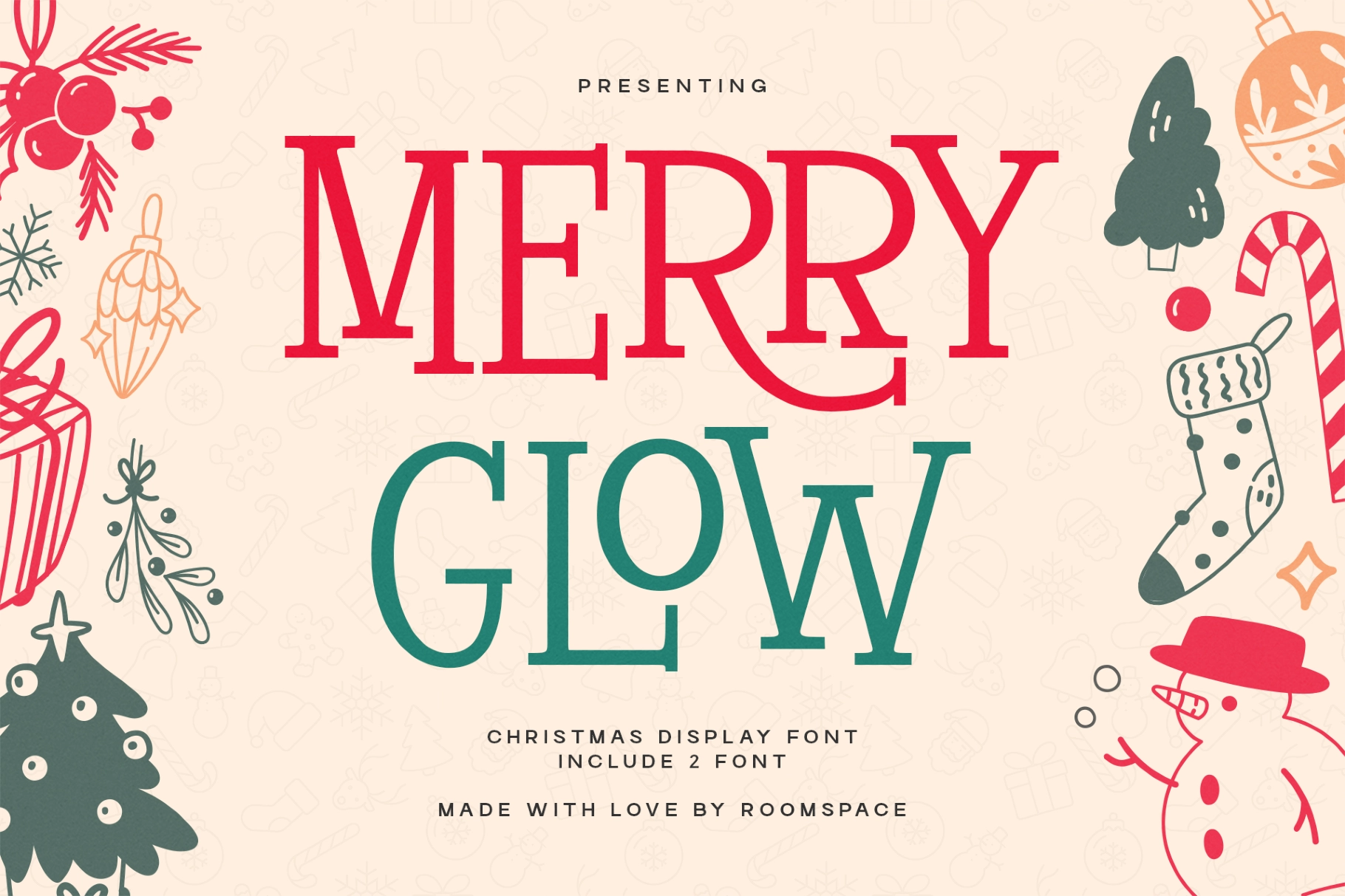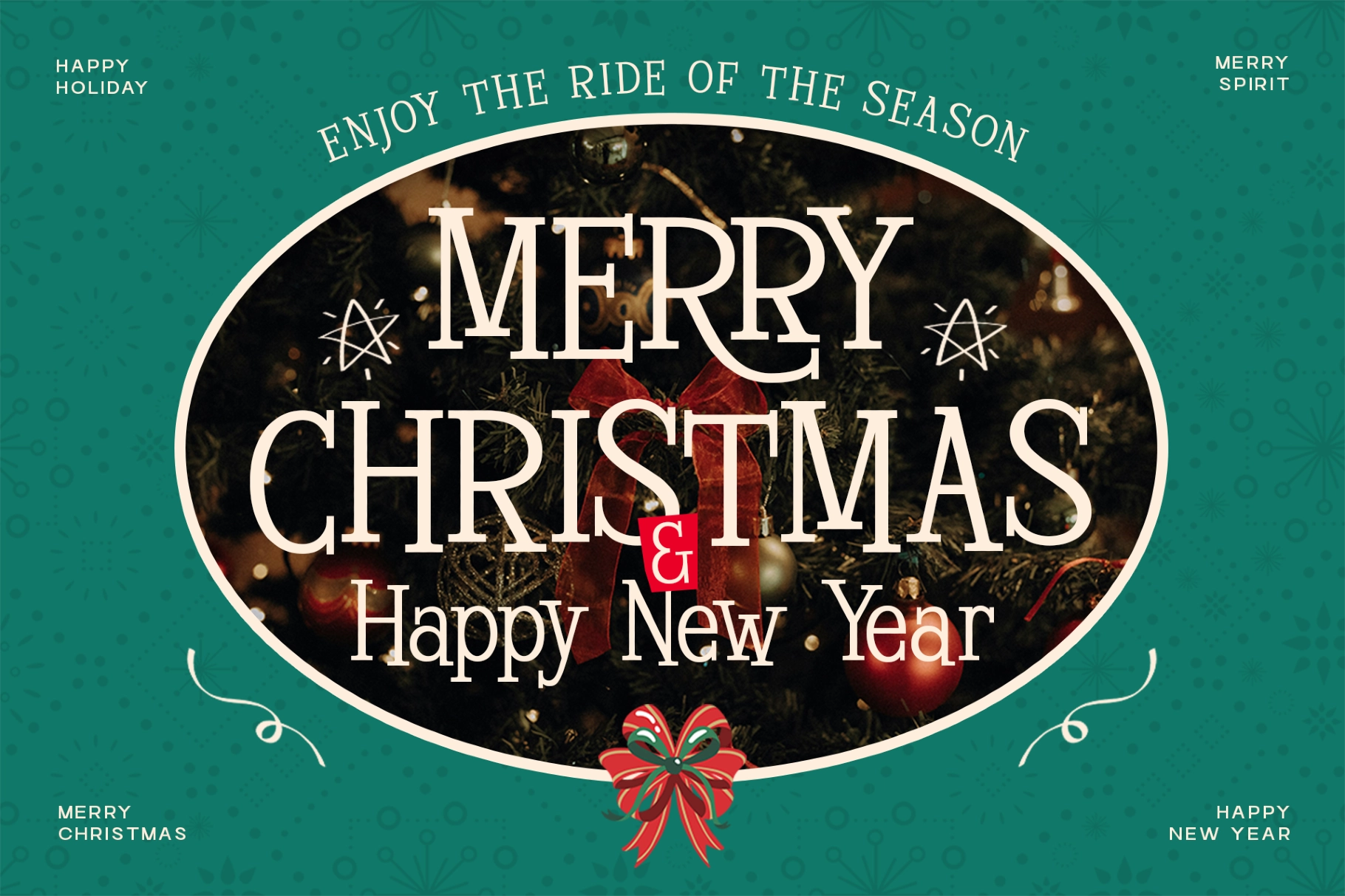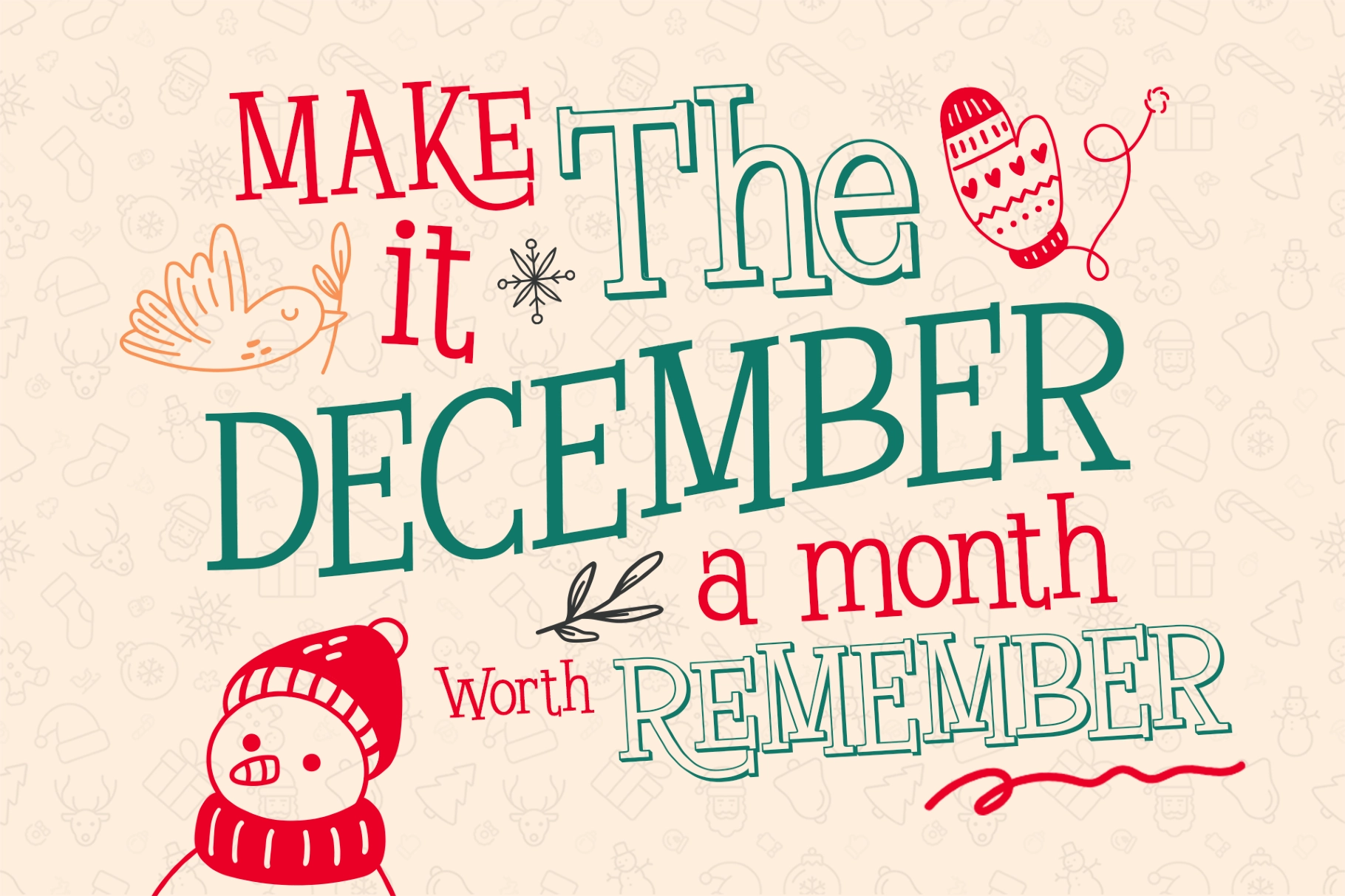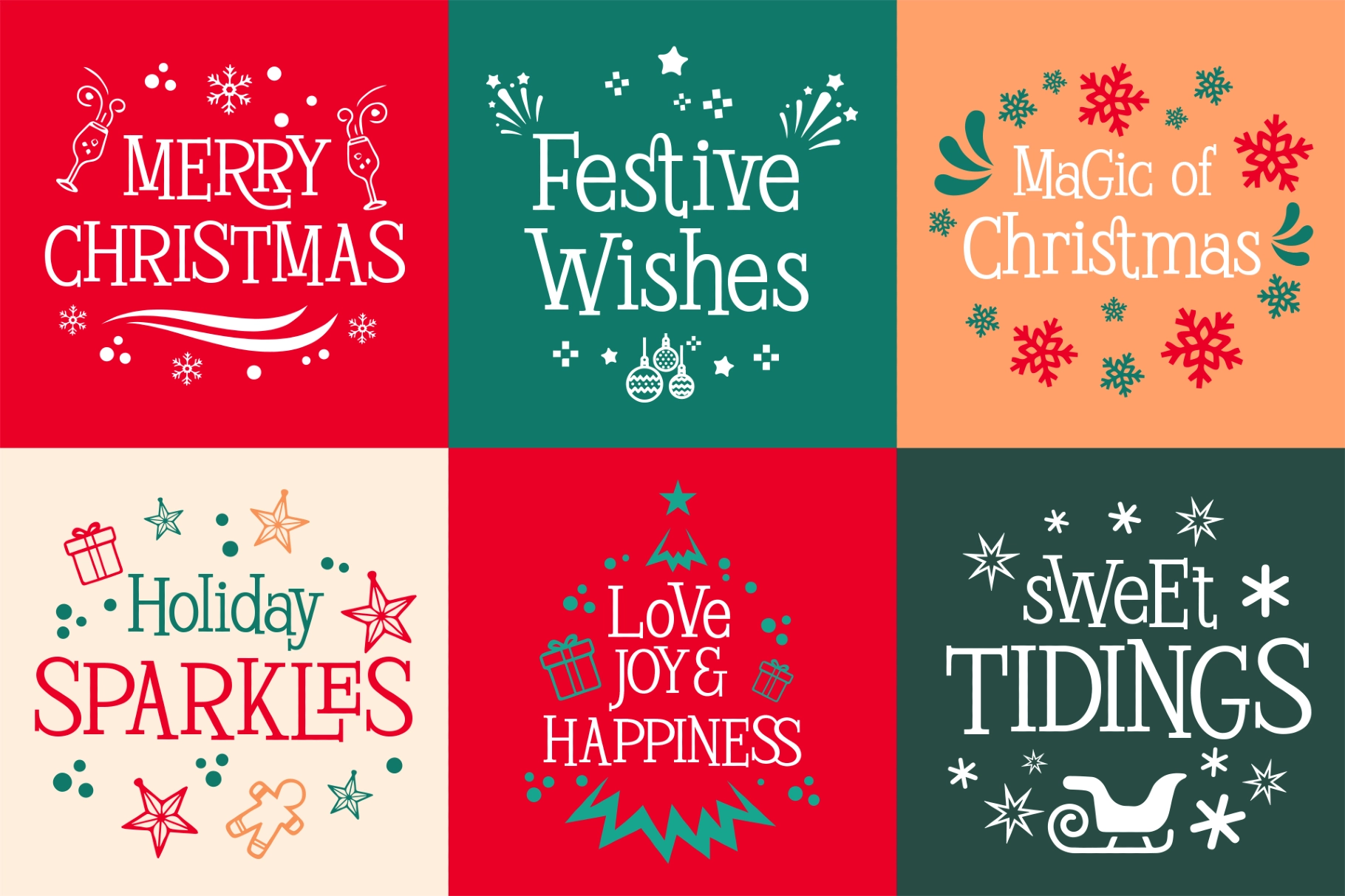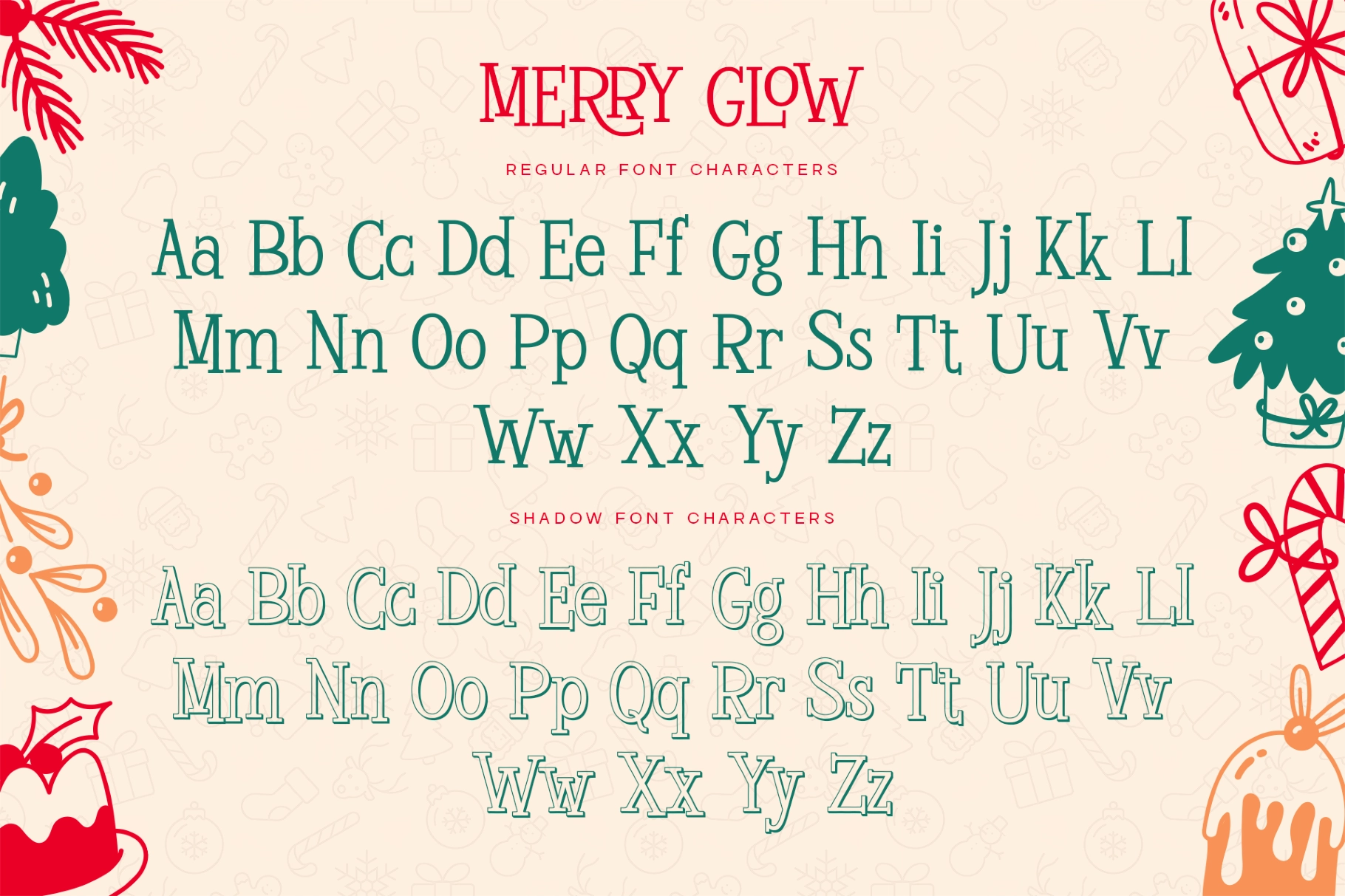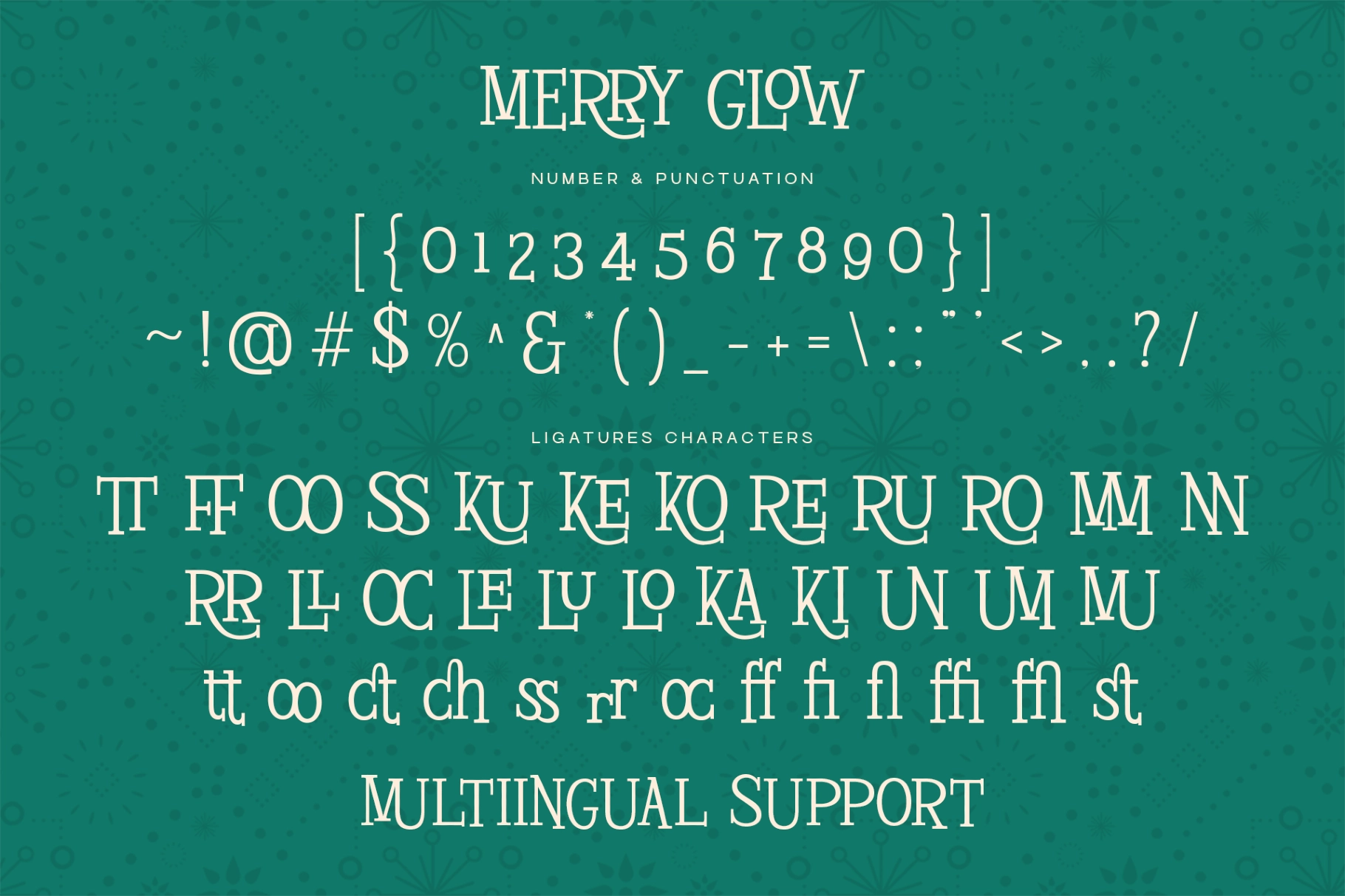
Merry Glow – Christmas Display Serif Font
Merry Glow draws from the visual register of mid-century Christmas department store typography — the kind printed on holiday window decals, seasonal catalogues, and hand-lettered gift tags from the 1950s and 60s. The letterforms run tall with sharp bracketed serifs, strong stroke contrast between thick verticals and hairline horizontals, and open counters that keep everything crisp at display sizes. As a christmas serif font it occupies that precise territory between classic editorial and festive occasion — serious enough for a branded headline, warm enough for a greeting card.
The shadow style layers a double-outline stroke behind every character, so a single word can carry the layered look of vintage sign-painting without stacking two separate type treatments.
- 2 styles: regular, shadow;
- Uppercase & lowercase;
- Numerals, punctuation & symbols;
- Ligatures;